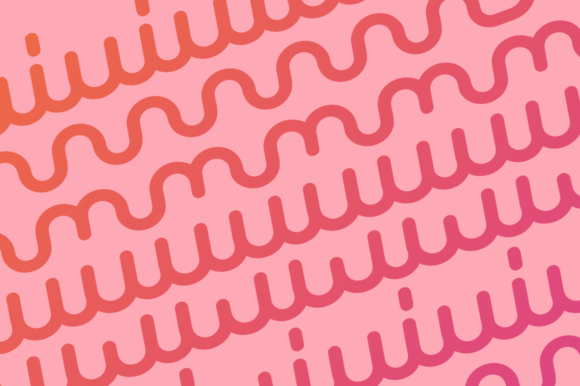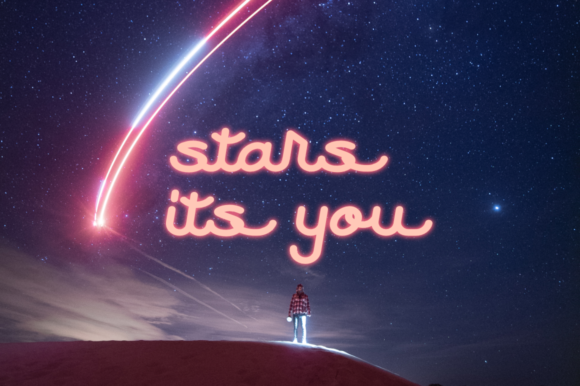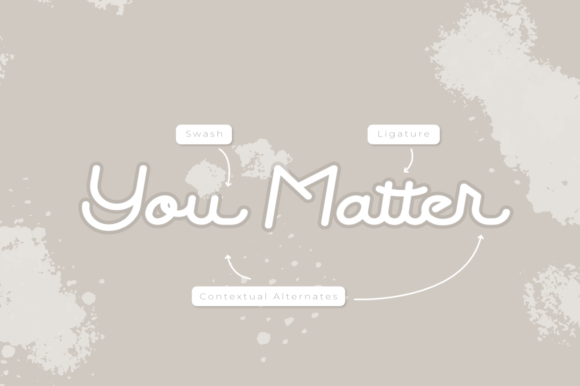
Introduction to Neonllimitted Font
Have you ever stared at a blank canvas, feeling the weight of creativity on your shoulders? The cursor blinks, taunting you to bring your vision to life. It’s in these moments that the right design resource can make all the difference. For me, it’s the thrill of discovering a new font that can elevate my project from good to great.
That’s where the Neonllimitted Font comes in – a stunning, handcrafted typeface that’s sure to add a touch of magic to your creative project. Its minimalist design and neat handwritten style make it an excellent choice for a wide range of applications, from logos to signage and beyond.
With the Neonllimitted Font, you can take your design to the next level with ease. Plus, its high-quality PUA encoding ensures that you can access all the glyphs and swashes you need to create a truly unique look. And the best part? It’s free to download, making it an invaluable addition to any designer’s toolkit.
Key Features of Neonllimitted Font
- High-quality, unique font design with a neon-lit aesthetic, ideal for creative projects and designs.
- Transparent background, allowing for easy customization and layering in your design.
- Available in a range of sizes, from 12pt to 72pt, to suit your design needs.
- High-resolution design, with a resolution of 300 DPI, ensuring crisp and clear text in print and digital applications.
- Perfect for designers, artists, and creatives working on projects that require a bold, eye-catching font.
- A valuable design resource for anyone looking to add a touch of neon glamour to their work.
Honest Review: Neonllimitted Font
I recently had the opportunity to work with the Neonllimitted Font and I must say it’s a great addition to any design project. This font is perfect for creating eye-catching visuals and adding a touch of neon flair to your work.
- ✨ High quality design that looks great on a transparent background.
- ✨ Perfect for creative projects that require a bold and futuristic feel.
- ⚠️ The font is not suitable for formal or professional projects due to its playful and neon design.
- ⚠️ It may not work well with certain color schemes or backgrounds, so be sure to test it out before using it in your project.
Overall, I’m impressed with the Neonllimitted Font and I would definitely recommend it to designers looking for a high-quality, free design resource for their creative projects.
Tips for Getting the Most Out of Neonllimitted Font
To get the most out of the Neonllimitted Font, use it in conjunction with a transparent background to create a high-quality design. You can also experiment with different font sizes and colors to create a unique look.
The Neonllimitted Font is ideal for use in creative projects, such as social media graphics, blog posts, and presentations. Its high-quality design and transparent background make it a valuable design resource for any project.
Yes, the Neonllimitted Font is highly customizable, allowing you to adjust its size, color, and style to fit your creative project’s needs. You can also experiment with different font combinations to create unique and eye-catching designs. However, please note that some font features, such as the transparent background, may require specific design software or plugins to access.